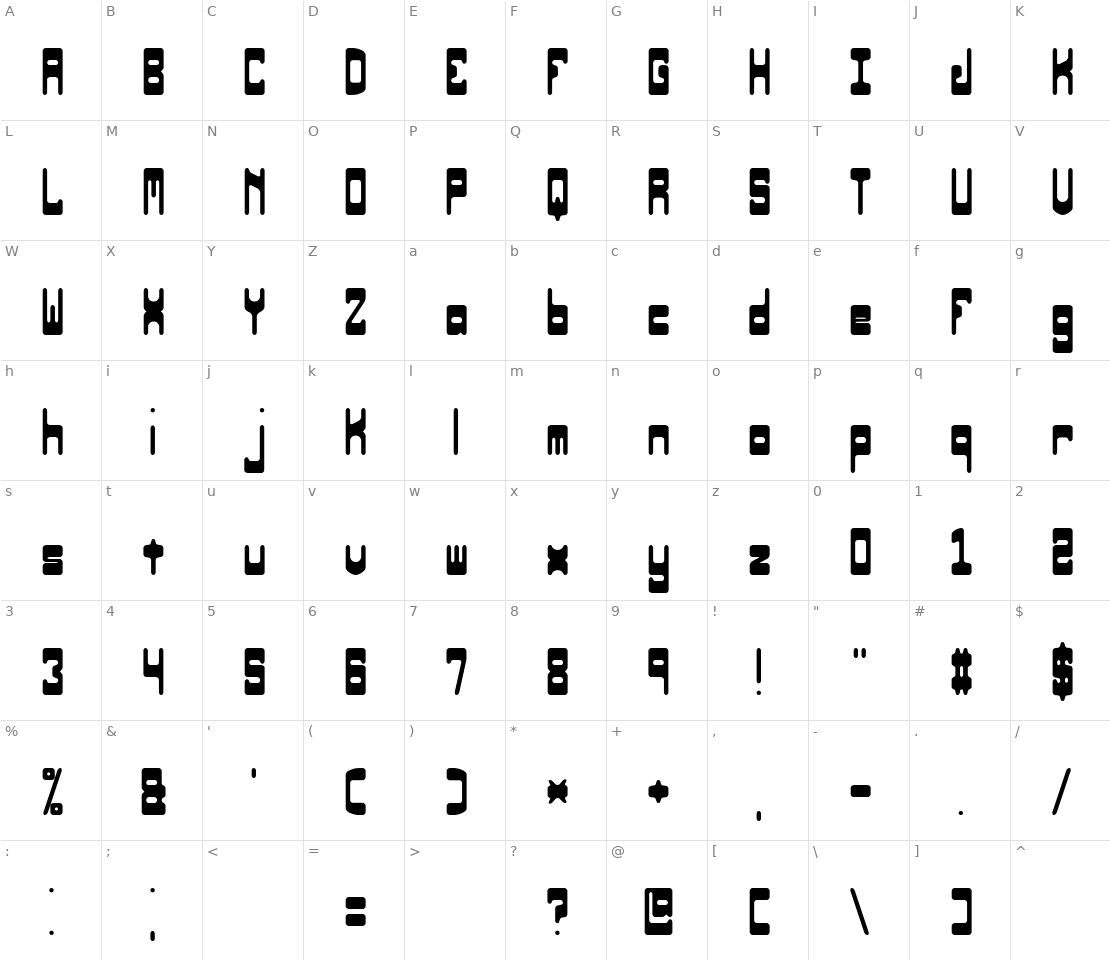
Orbicular
Orbicular is a heavy, blocky display face from Ænigma Fonts with dense geometric letterforms that feel more like engineered components than traditional type. Despite the name suggesting curves, the design leans squarely into condensed, angular territory, with tight spacing and bold weight that give it a futuristic, almost mechanical presence. Built for headlines, posters, and UI work where you need something that reads as modern and imposing.